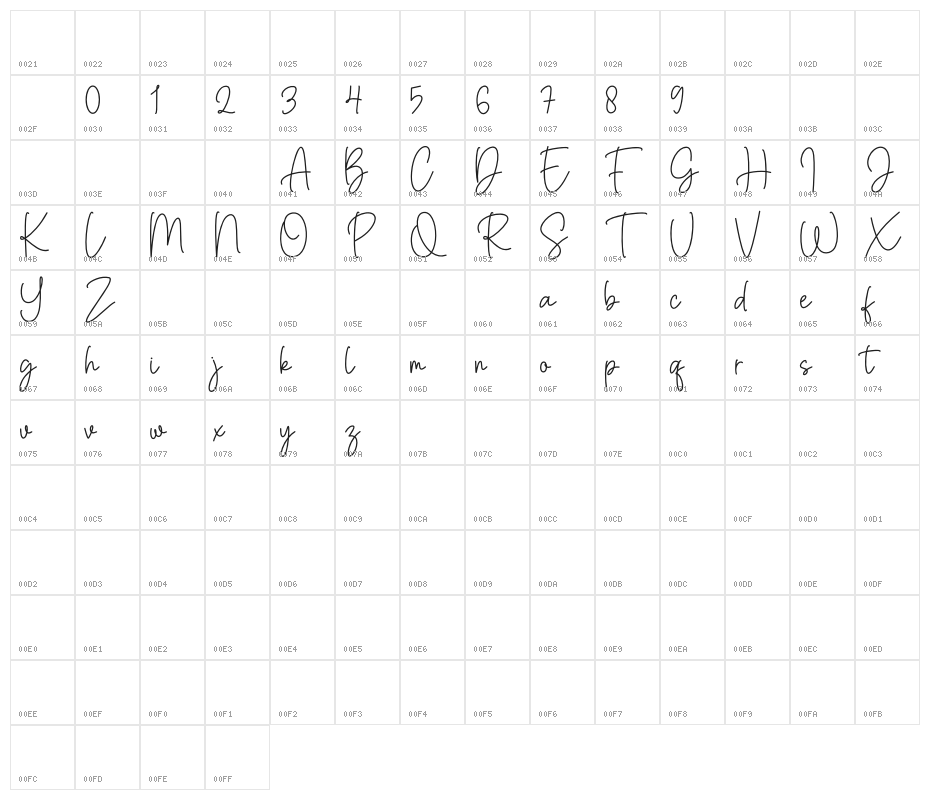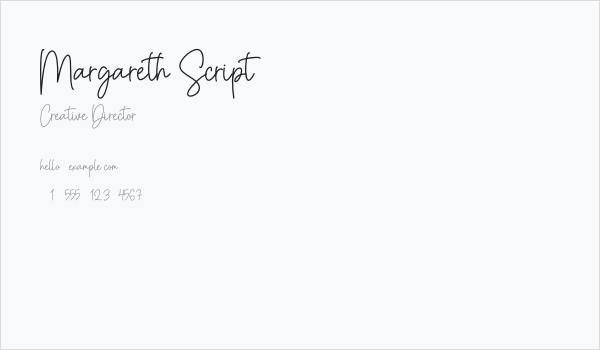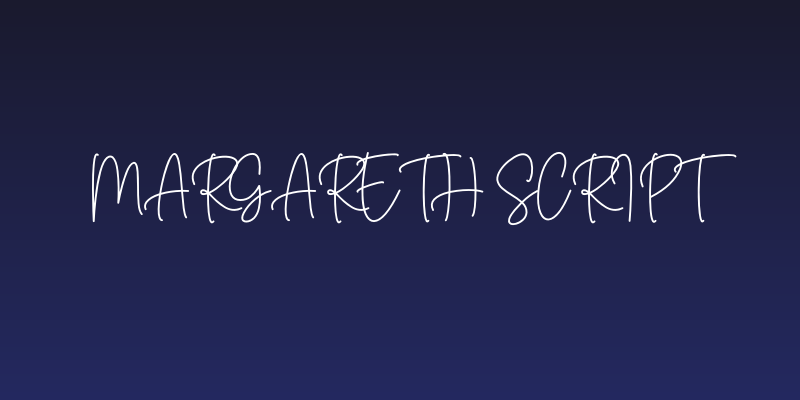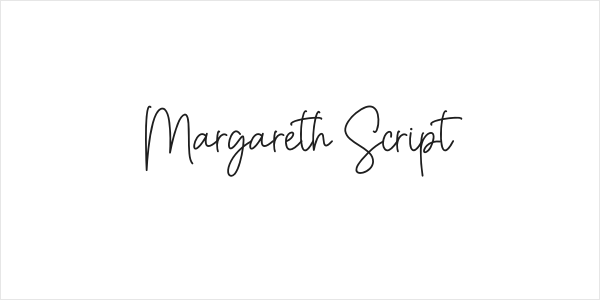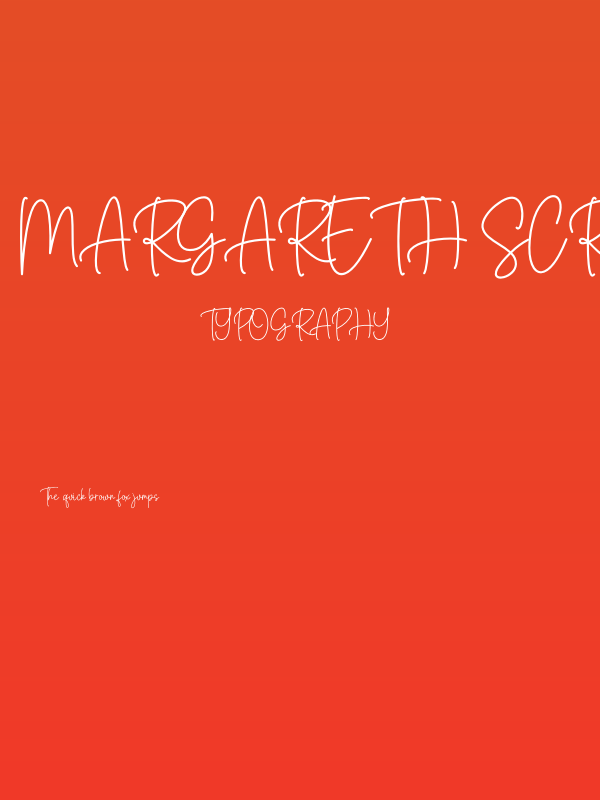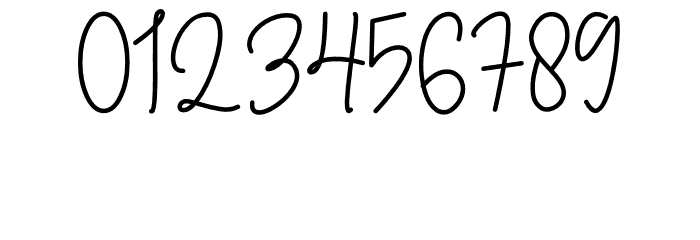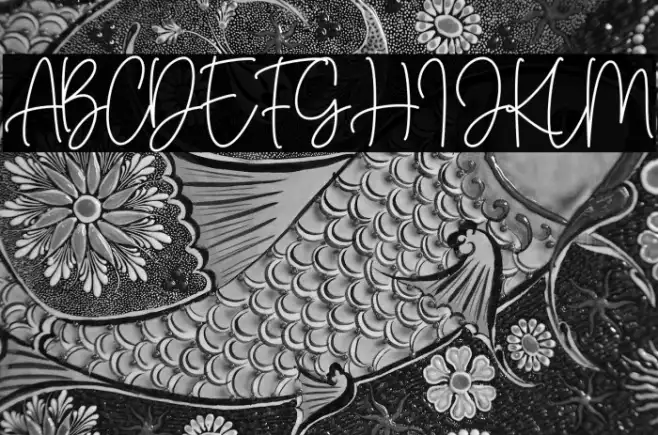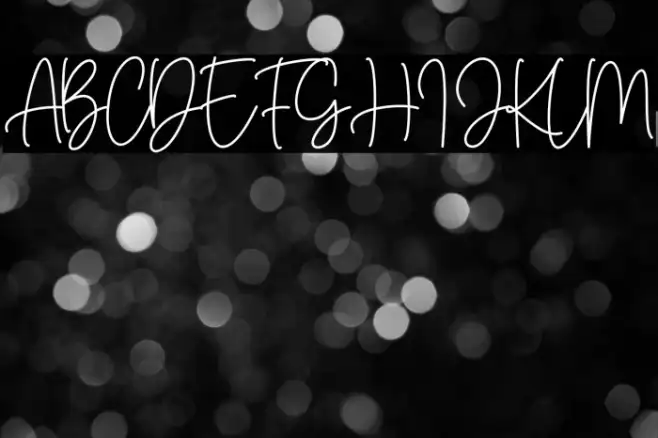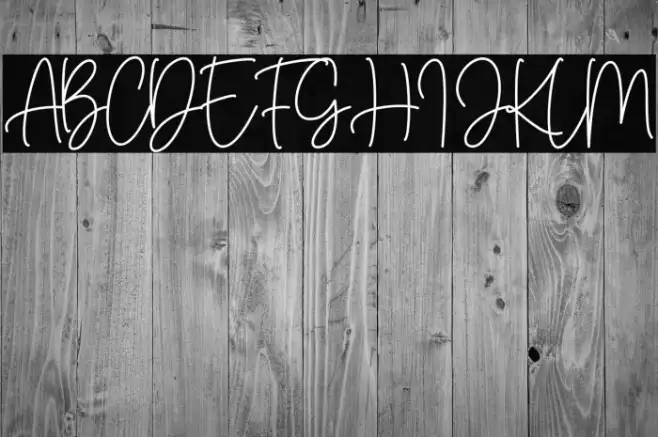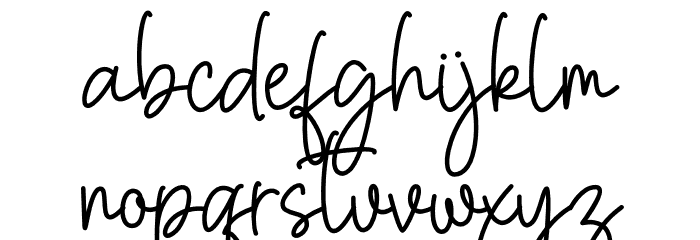
Margareth Script Font
Margareth Script Description
This font exudes a charming and elegant handwritten style, characterized by its flowing and interconnected letterforms. The uppercase letters are tall and slender, with a graceful loop that adds a touch of sophistication. The lowercase letters maintain a consistent flow, enhancing the script's fluidity and readability. Numbers are clear and distinct, matching the overall aesthetic of the font. Special characters are seamlessly integrated, maintaining the script's cohesive look. This font is perfect for adding a personal and stylish touch to any project.
| Proposed Projects | Ideal for wedding invitations, greeting cards, personal branding, and elegant packaging designs. |